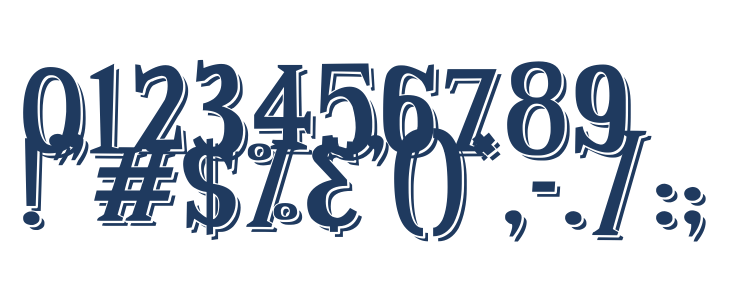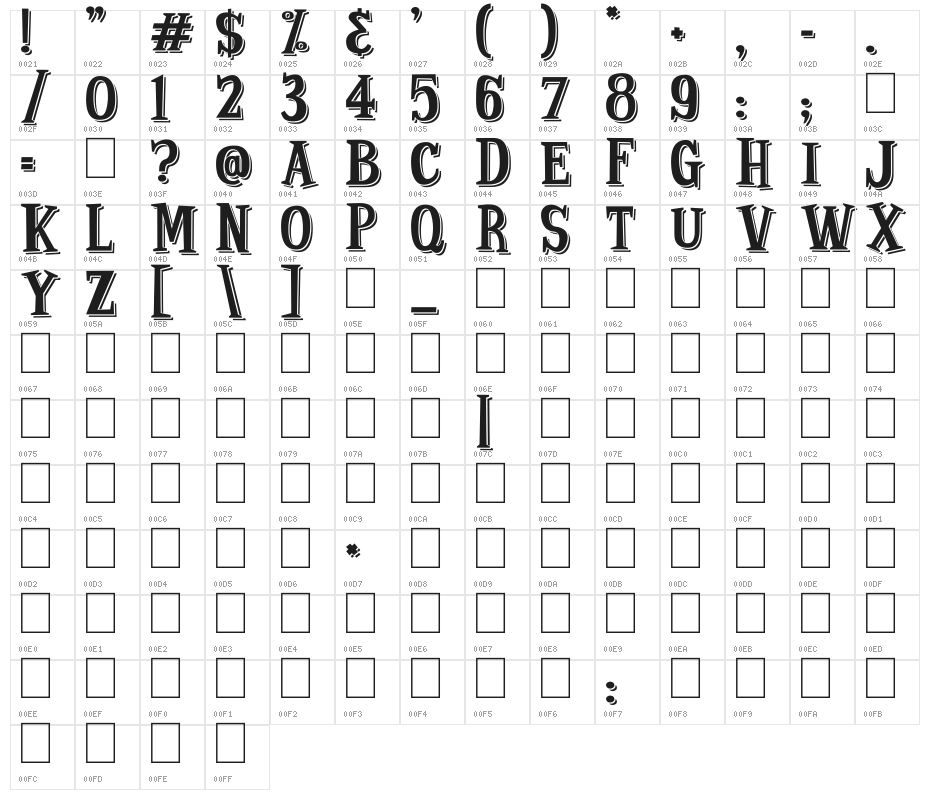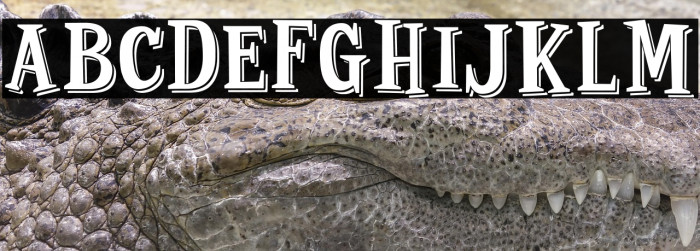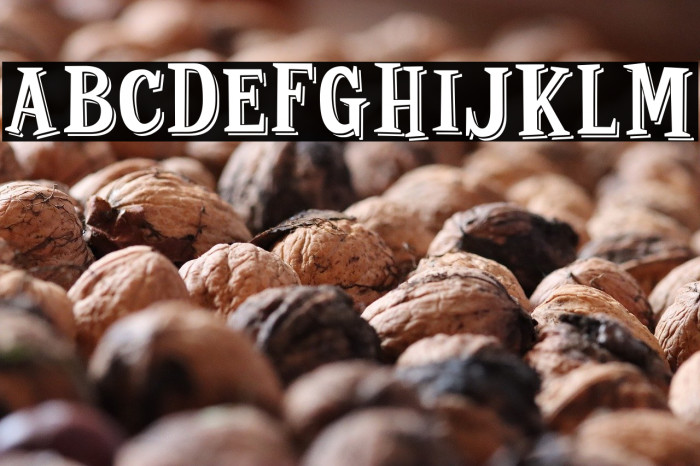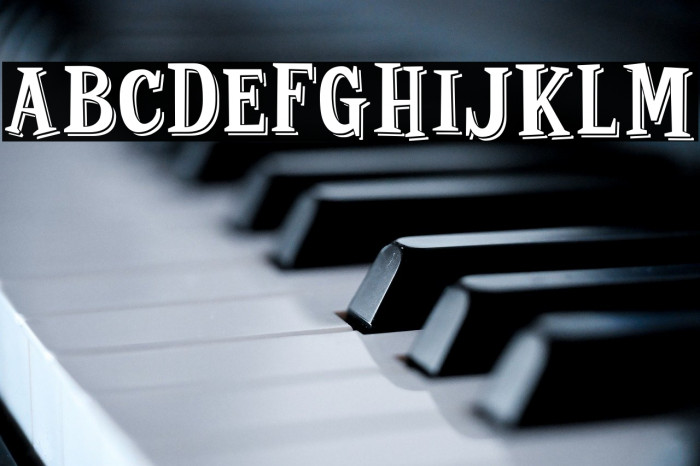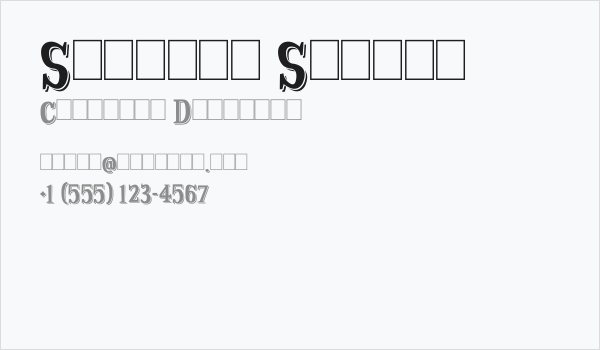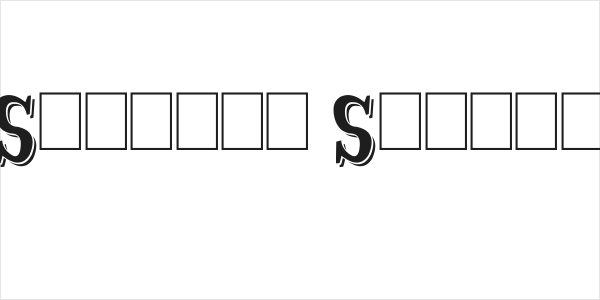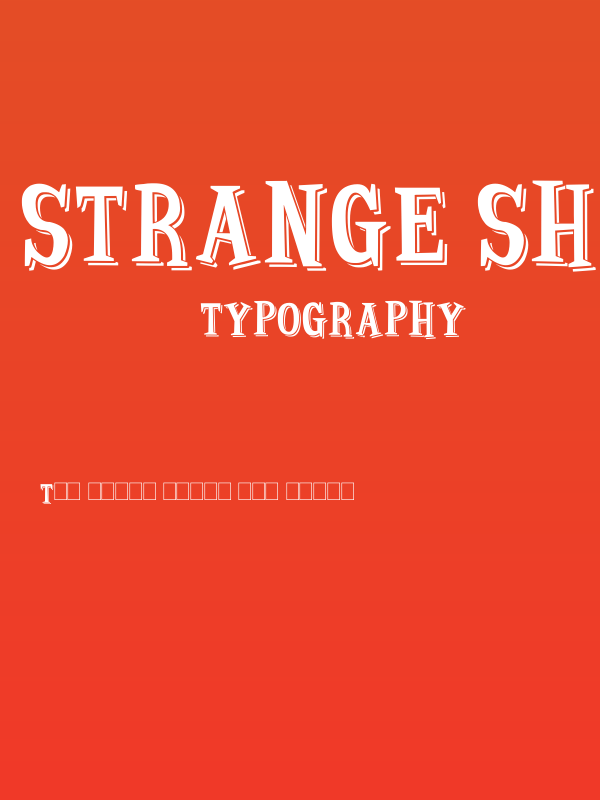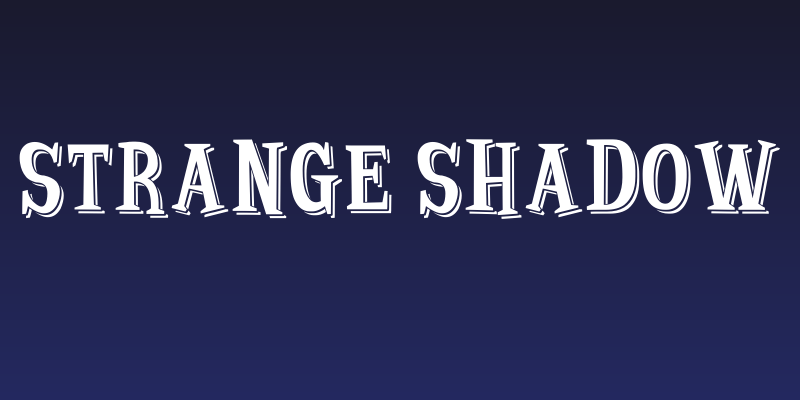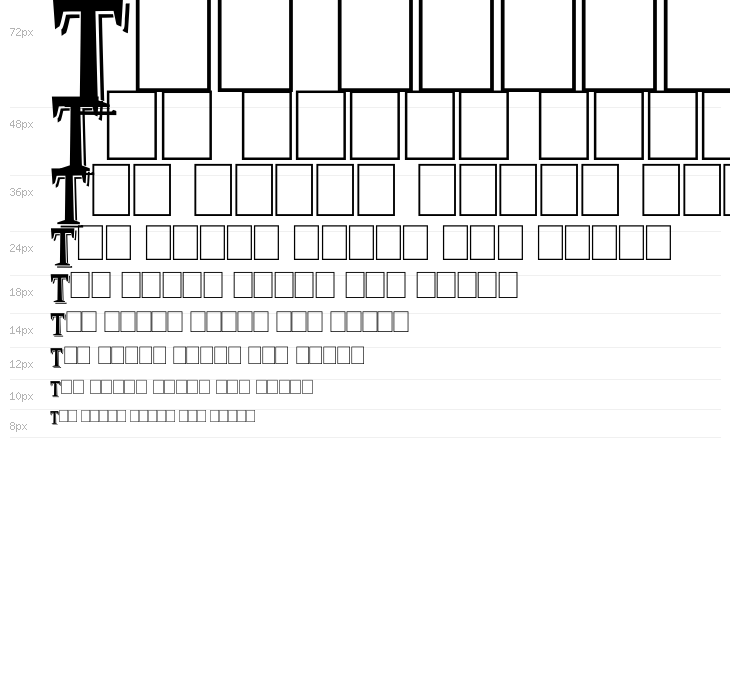
Strange Shadow Font
Strange Shadow Description
This font features a bold and dramatic style with a distinct shadow effect that gives each character a three-dimensional appearance. The uppercase letters are designed with strong, angular serifs and a slight slant, adding to the dynamic feel. The numbers and special characters maintain this bold style, ensuring consistency across all glyphs. The shadow effect is prominent, creating a sense of depth and movement, making it ideal for eye-catching designs. The overall aesthetic is both vintage and modern, suitable for projects that require a standout typeface.
| Proposed Projects | Ideal for posters, headlines, branding, and any design requiring a bold, attention-grabbing typeface. |